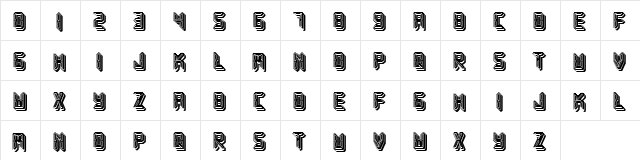
Universal Serial Bus Regular
Design Context for Universal Serial Bus Typeface
Universal Serial Bus is a composed and adaptable typeface that performs quietly and consistently across a wide range of design contexts.